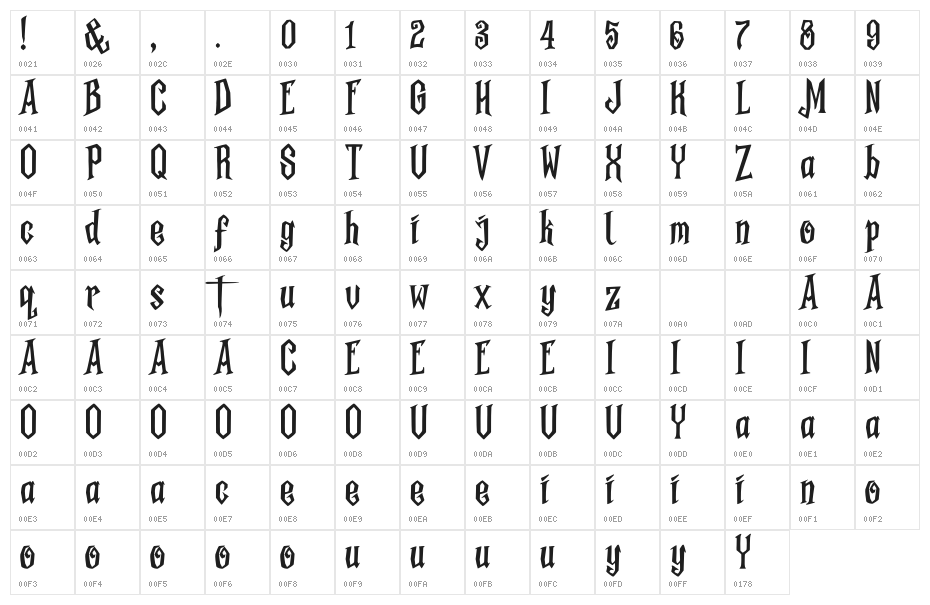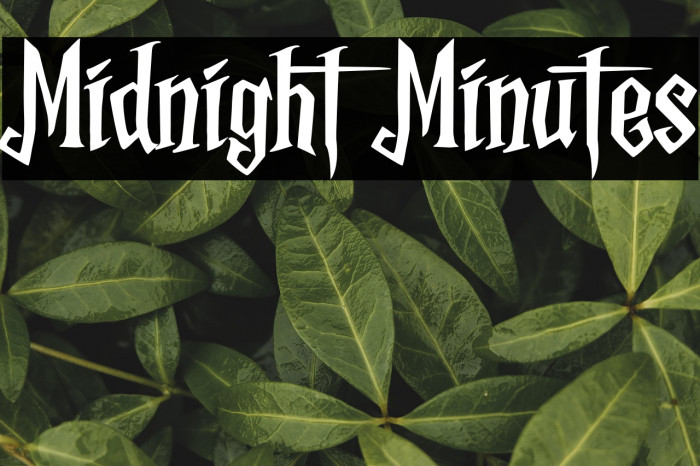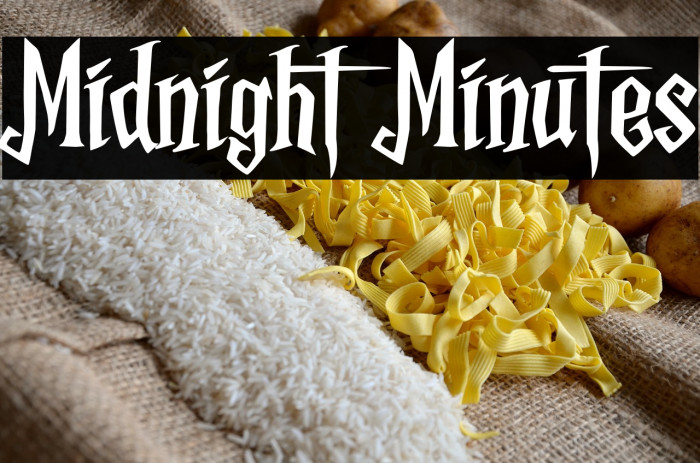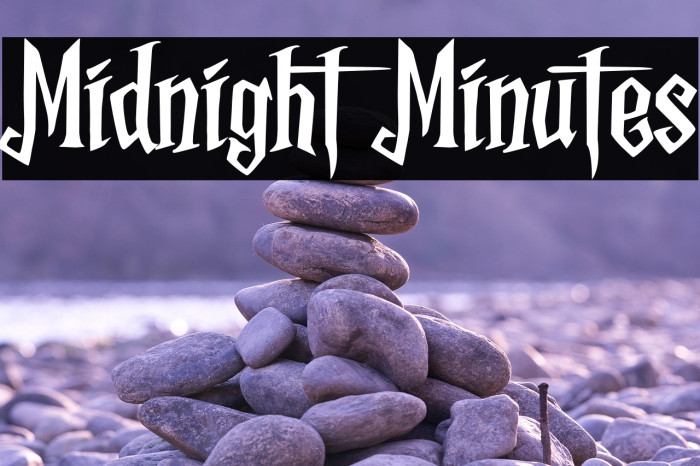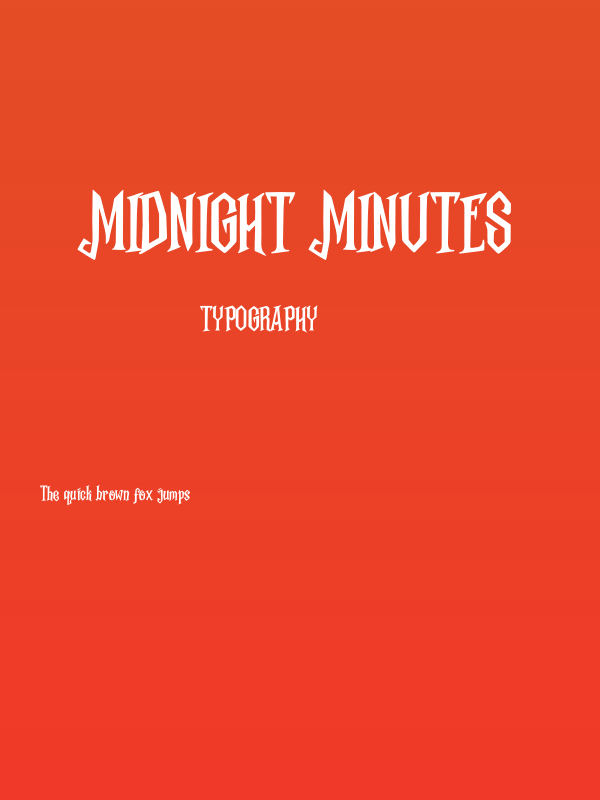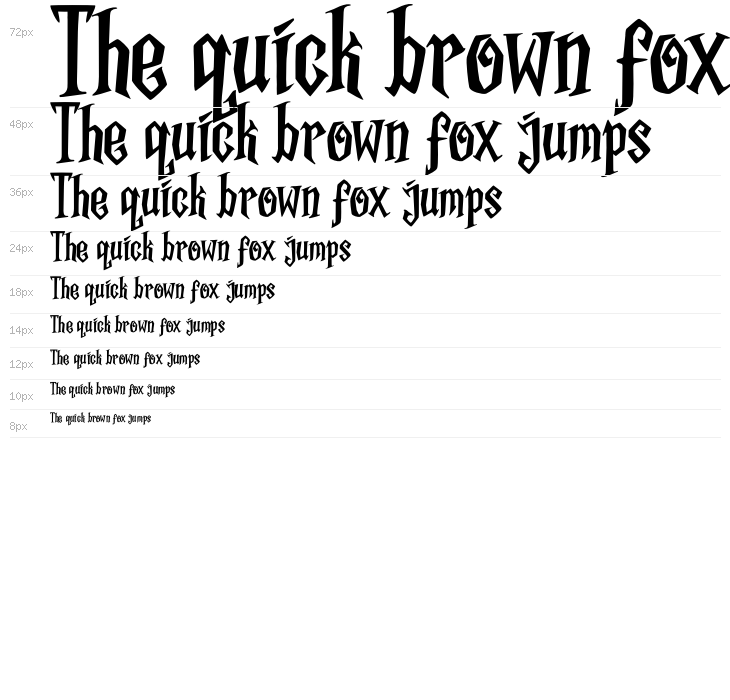
Midnight Minutes Font
Midnight Minutes Description
This font features a bold and striking design with sharp, angular lines and a gothic influence. The uppercase letters are tall and imposing, while the lowercase letters maintain a consistent style with slightly more curves. The numbers are distinct and maintain the same boldness, making them stand out. Special characters are designed to match the overall aesthetic, adding a cohesive look. The font's unique style makes it suitable for projects that require a dramatic and eye-catching appearance.
| Proposed Projects | Ideal for posters, album covers, branding for edgy or alternative products, and any design needing a dramatic flair. |